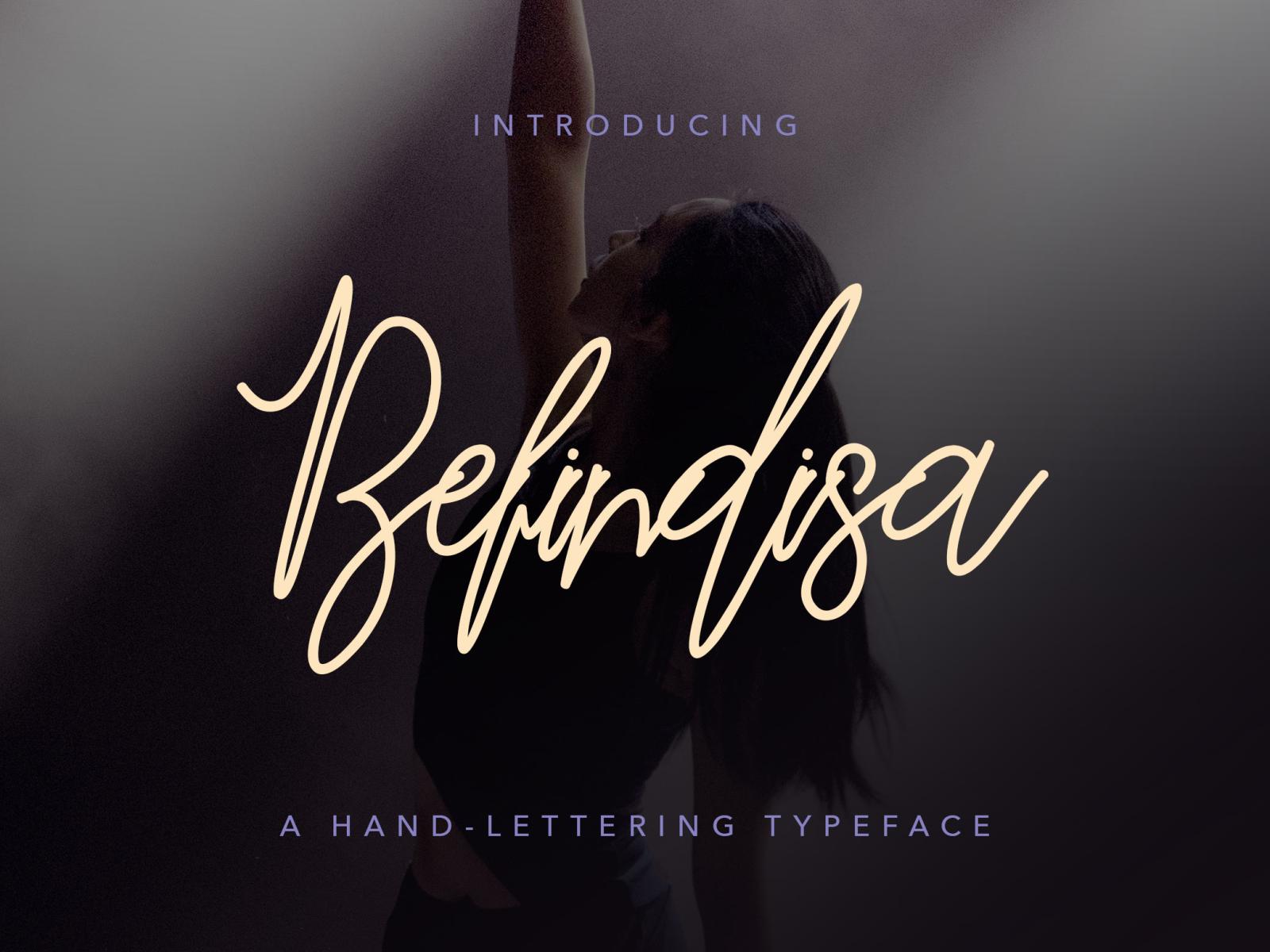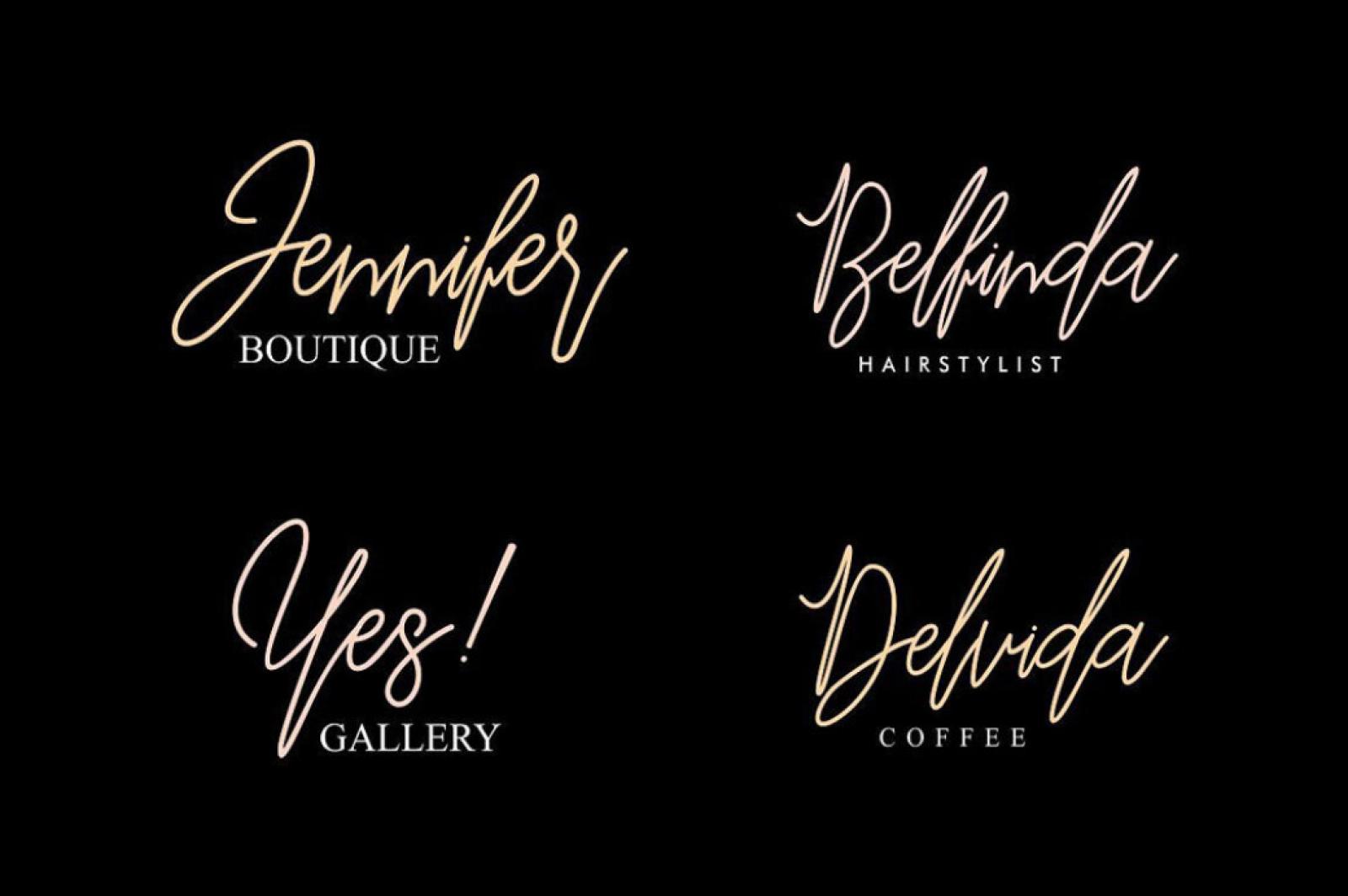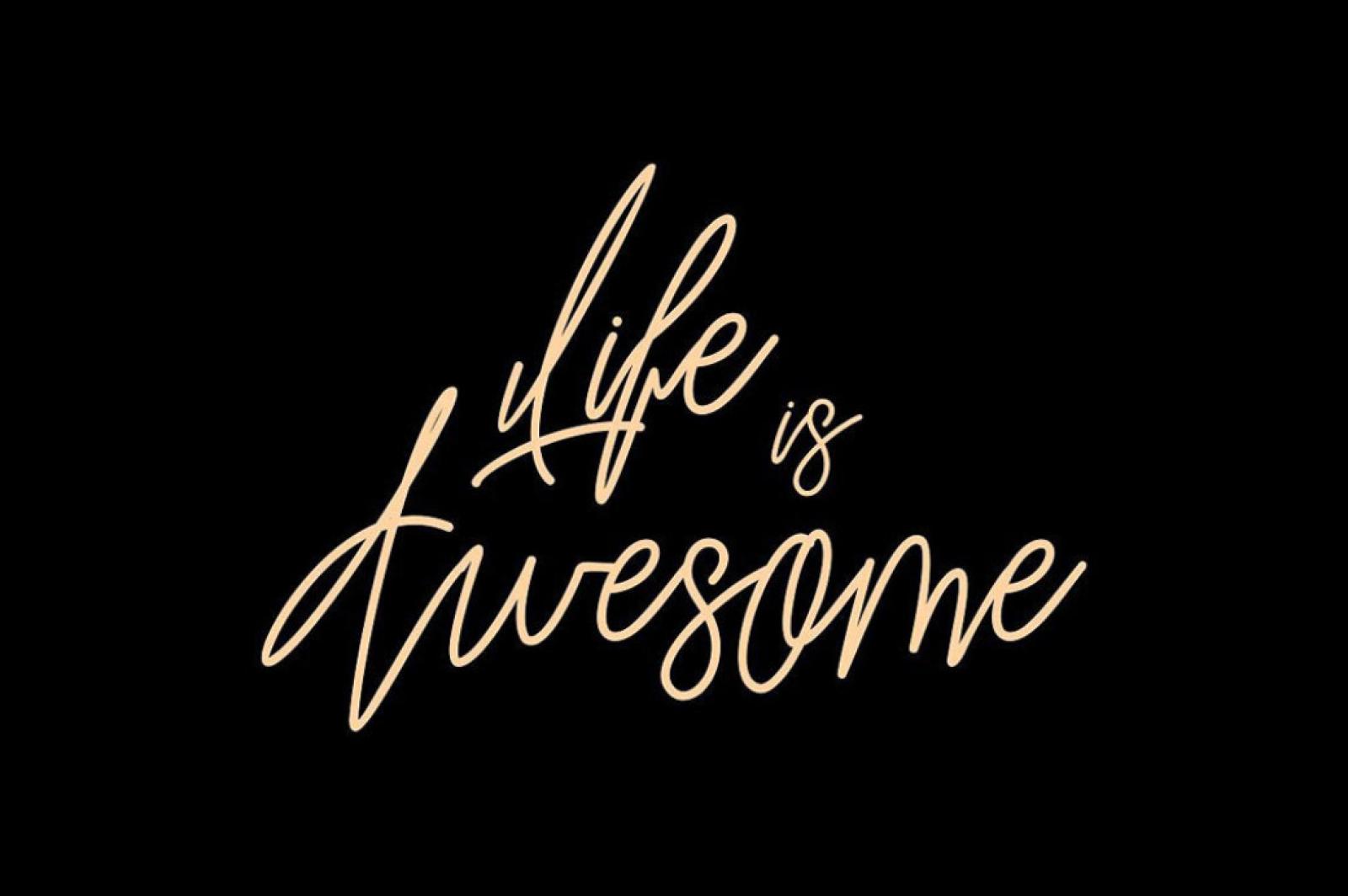
Befindisa Script Font
Meet a tremendous hand-letter script font combining simplicity, pure style, and conciseness to produce celebrity-like signatures every star would envy.
This display typeface is just perfect for crafting anything you may figure out and what's even more captivating - producing the effect of lightness and a peaceful ease. Look how gracefully each line crosses the other one and creates a harmonic composition. If you want to have it for your headlines, apparel solutions, logotypes, and web pages this is your excellent solution!